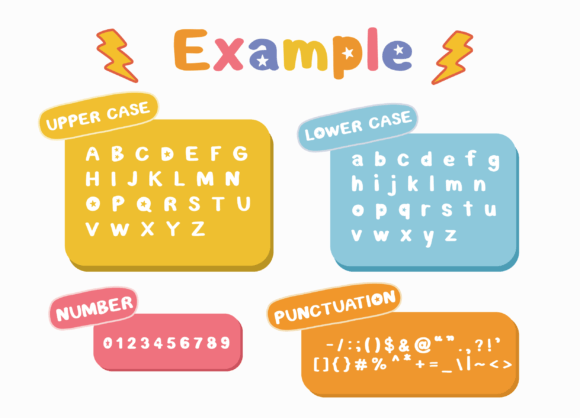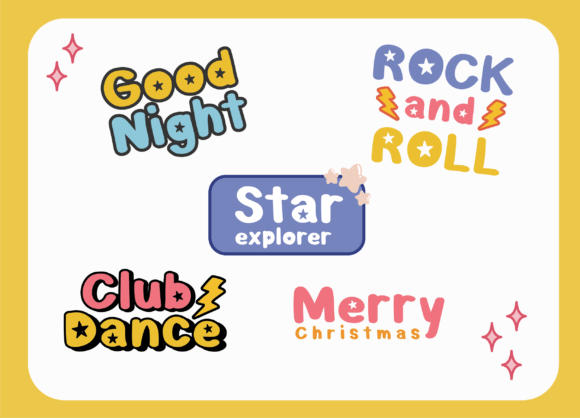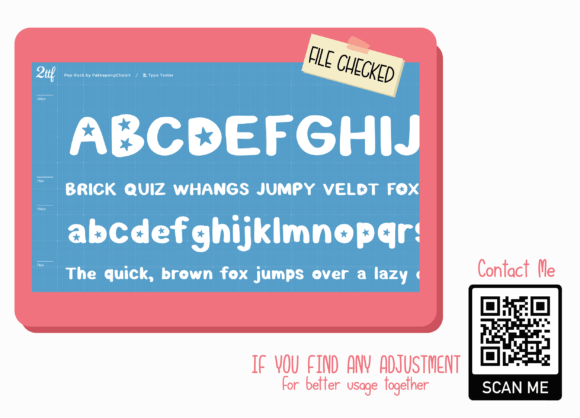
Introduction to Pop Rock Font
Imagine walking into a packed concert venue, surrounded by the pulsating energy of a live performance. The air is electric, and the music is infectious. You feel the beat in your chest, and the excitement is palpable. Now, imagine being able to capture that same energy in your design projects. That’s exactly what the Pop Rock Font does – it brings the dynamic essence of pop rock music to your creative endeavors.
This bold style font is a design resource that’s sure to make your projects stand out. With its vibrant appearance and strong letterforms, it’s the perfect choice for anyone looking to add a high-quality, pop rock theme to their work. Whether you’re working on a free download, a commercial project, or just a fun creative project, the Pop Rock Font is a valuable addition to your design arsenal.
Key Features of Pop Rock Font
- Transparent background for easy customization and blending with any design
- Unique, bold, and playful style suitable for pop culture-inspired designs
- Size: Scalable to any size without loss of quality or clarity
Honest Review: Pop Rock Font
I recently stumbled upon the Pop Rock Font, and I must say, it’s a great addition to any designer’s toolkit. This free download is perfect for creative projects that need a touch of edginess.
What works well with Pop Rock Font is its high-quality design, which is evident in the intricate details and unique typography. The transparent background makes it easy to integrate with any design element, giving you maximum flexibility. The font also comes in a range of styles, from bold to cursive, making it suitable for various design needs.
- ✨ Great for music-related projects or anything that needs a rock-inspired vibe.
- ✨ Offers a range of styles to suit different design needs.
- ✨ High-quality design with intricate details.
However, there are a few limitations to consider. The font may not be suitable for all types of projects, and it’s not as versatile as some other design resources.
- ⚠️ May not be suitable for projects that require a more formal tone.
- ⚠️ Limited customization options.
Overall, the Pop Rock Font is a solid choice for designers who need a high-quality, free design resource for their creative projects.
The Pop Rock Font is a high-quality design resource perfect for creative projects that require a modern and energetic feel. It’s available for free download and can be used in a variety of applications, from social media graphics to presentations.
To get the most out of Pop Rock Font, use it with a transparent background to create a modern and sleek design. You can also pair it with other design elements, such as icons and graphics, to create a cohesive and engaging visual identity.
The Pop Rock Font is perfect for a wide range of creative projects, including social media graphics, presentations, and documents. It’s also great for creating a brand identity or visual style for a business or organization.